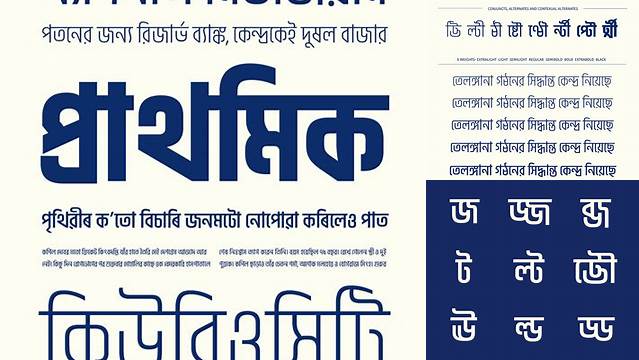
Free Akhand Bengali Font Download: A Beginner's Guide
Akhand Bengali Font Free Download: Your Gateway to Expressive Typography
Hey guys! Are you on the hunt for a stunning Akhand Bengali font free download? You've come to the right place! In this comprehensive guide, we'll dive deep into the world of Bengali fonts, focusing on the beautiful and versatile Akhand style. We'll explore where to find these fonts, how to install them, and how to use them to add a touch of elegance and cultural flair to your projects. Whether you're a seasoned designer, a budding enthusiast, or simply someone who loves the beauty of the Bengali script, this article is for you. Get ready to unlock the potential of Akhand Bengali fonts and transform your designs!
What is Akhand Bengali Font and Why You Need It?
So, what exactly makes the Akhand Bengali font so special? Well, first off, it refers to a style of Bengali typography characterized by its connected or "joined" letterforms. Unlike some Bengali fonts where letters might appear more separated, Akhand fonts emphasize the flow and seamlessness of the script. This creates a visually appealing and harmonious effect, perfect for various design applications. The name "Akhand" itself, meaning "whole" or "unbroken," perfectly captures the essence of this style. This makes it look fantastic and gives it a sense of continuity when strung together.
Why would you need an Akhand Bengali font free download? Well, think about it: if you're working on any project that involves the Bengali language – from website content and social media posts to brochures, posters, or even personal correspondence – a well-chosen font can make all the difference. It's a way to connect with your audience on a deeper level, to convey a sense of authenticity, and to showcase the beauty of the Bengali script. Using an Akhand font specifically allows you to add a touch of sophistication and cultural relevance to your work. Let's be honest, using the right font is a simple way of letting people know that you care enough to do your work right, that you pay attention to detail. It shows that you put a lot of thought into making your work look good and creating a unique experience for your readers. Whether it is a poster or a website, using a font like the Akhand Bengali font is a step towards making your work stand out. Also, these fonts offer a unique aesthetic appeal that sets them apart from more common, less ornate styles. The connected letterforms and elegant curves give your text a sense of grace and sophistication. It can be the perfect option if you want to add a bit of culture. The design and the feel will become unique. It will be like your signature of approval, to show that you care about your project. This makes it useful for formal and creative projects. You can think about it, it will look better than using a default font that everyone uses!
Tips for Choosing the Right Akhand Bengali Font
Choosing the perfect Akhand Bengali font might seem daunting, but here are some tips to make the process easier, guys! First, consider the purpose of your project. Is it a formal document, a creative poster, or a website design? Different fonts have different personalities, and the right choice depends on the overall tone and message you want to convey. For formal documents, you might choose a more traditional and elegant Akhand font. For more creative projects, you can experiment with fonts that have unique letter shapes and flourishes. Second, pay attention to readability. Even a beautiful font is useless if it's difficult to read. Make sure the font is clear and legible, especially at the size you intend to use it. Test the font at different sizes and see how it looks. Is it still easy to read? Can you differentiate between the letters? Remember that your goal is to make sure that the font is clear and easy to read. This makes sure that your audience understands the content.
Also, take a look at the font's character set. Does it include all the characters you need? Some fonts may not have every possible Bengali character, so make sure the font covers all the characters you'll be using. This is especially important if you're working on a project with complex language requirements.
Finally, consider the overall design and aesthetics of the font. Does it complement your existing design elements? Does it match the overall style and theme of your project? Look for fonts that integrate seamlessly with your design. Try different fonts and see which one matches your overall goals. You can also experiment with combining different fonts to create a unique and visually appealing look. It can be tricky sometimes, so don't be afraid of making some mistakes. The process is about trying different things and learning what works for you.
Conclusion: Embrace the Beauty of Akhand Bengali Fonts!
So, there you have it! You've learned all about the Akhand Bengali font free download, from where to find it, how to install it, and how to use it. Armed with this knowledge, you're now ready to embark on your typography journey and create stunning designs with a touch of Bengali flair! Keep in mind the importance of choosing a font that suits your project's needs and audience. The right font can truly enhance your designs. Embrace the beauty and elegance of Akhand Bengali fonts and let your creativity shine! Good luck, and happy designing! Remember to always respect the license and terms of use when downloading and using any font. Enjoy your designs and remember to give your projects some personality!